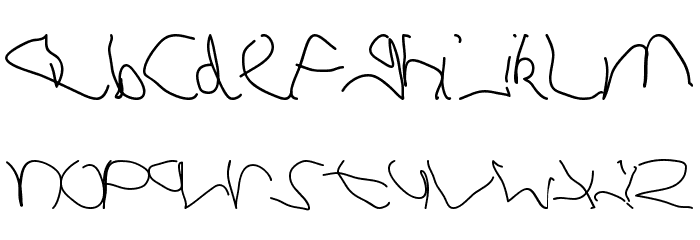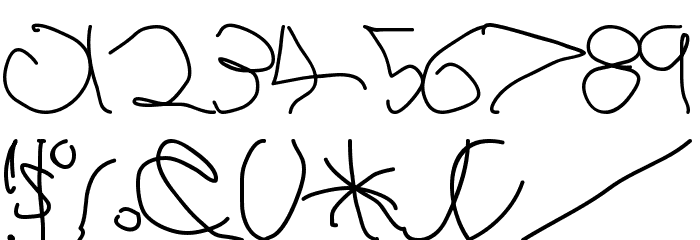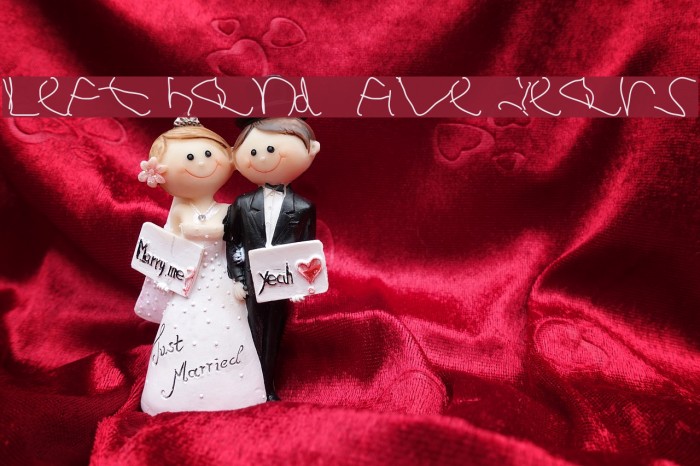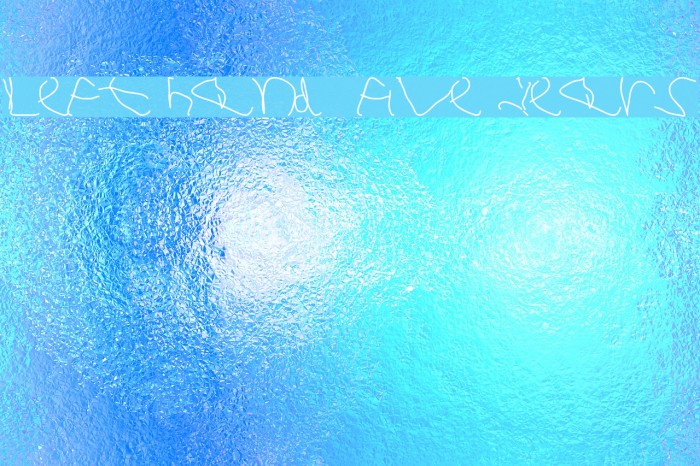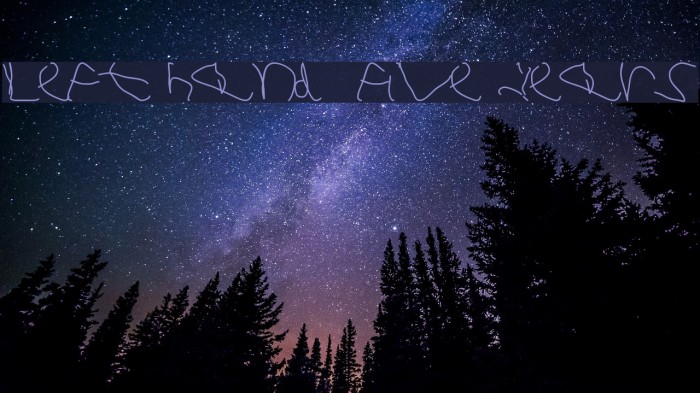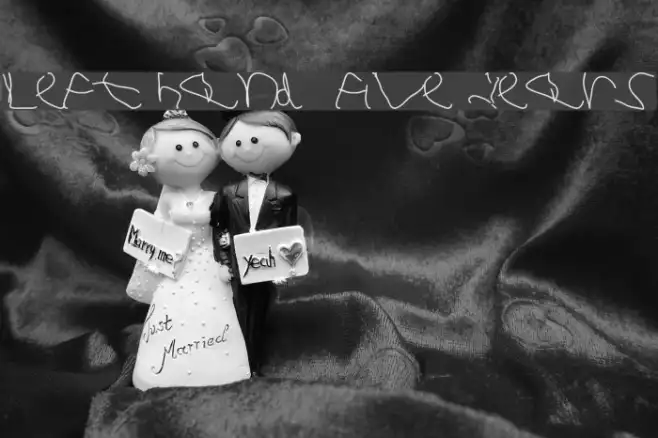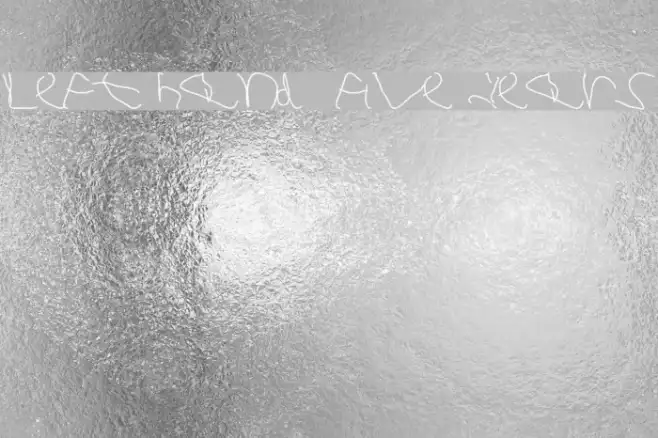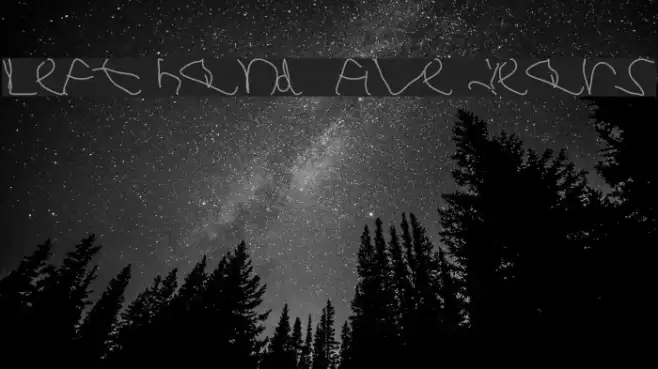
Left hand five years Font
This font features a highly expressive and freeform style, reminiscent of a child's handwriting or a casual, artistic script. The letters are irregular and vary in size and slant, giving it a playful and spontaneous appearance. The strokes are uneven, with some lines thicker than others, adding to the hand-drawn aesthetic. The characters are loosely connected, and the overall look is informal and whimsical. This font captures a sense of creativity and individuality, making it suitable for projects that aim to convey a personal touch or a sense of fun.
A playful, hand-drawn script with irregular, expressive strokes.
- Proposed Projects: Ideal for children's book covers, playful greeting cards, casual invitations, or any project that benefits from a whimsical, personal touch.
- Character Spacing: Wide
- Use Case: Logos, Headlines, Artistic projects